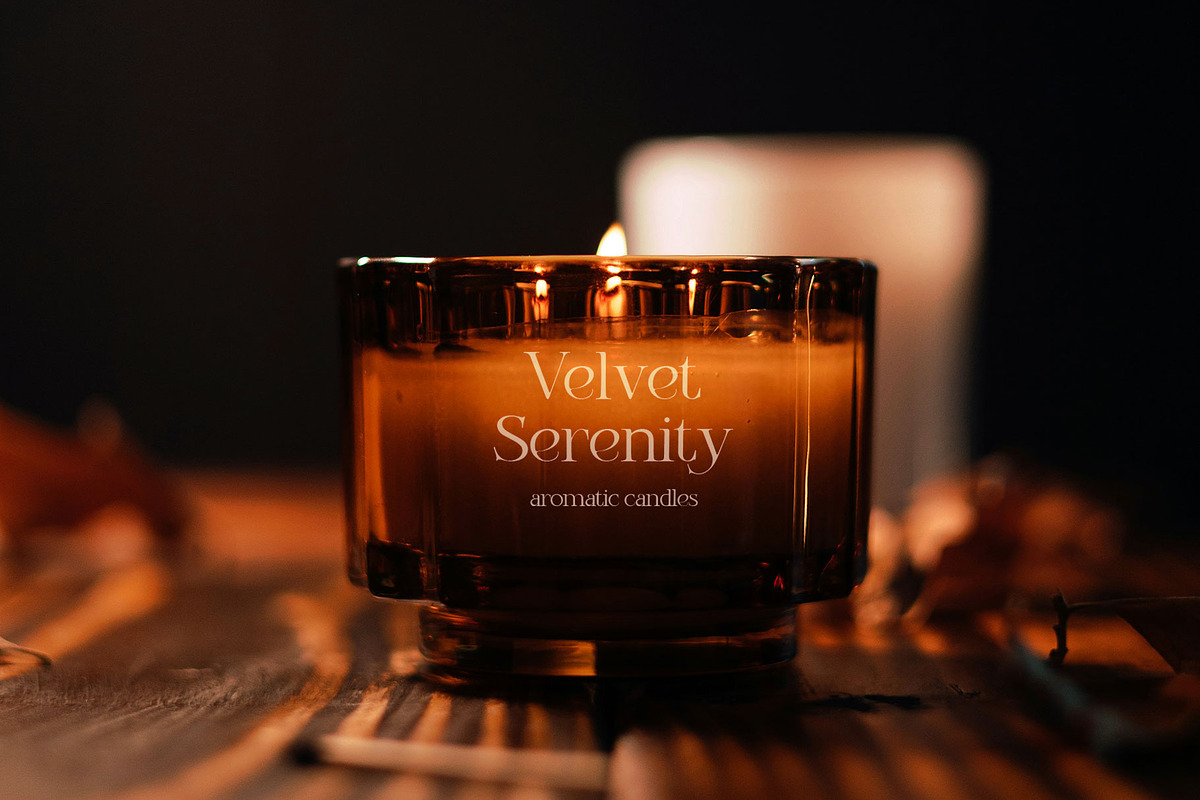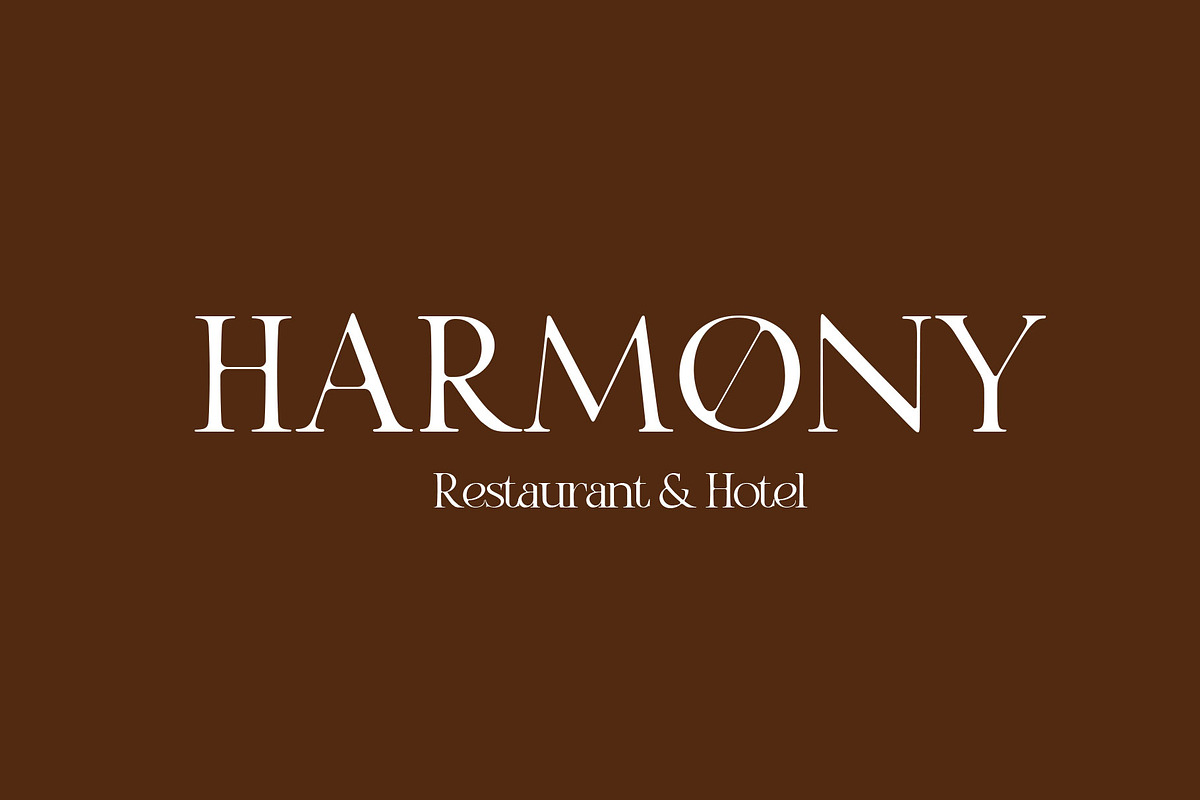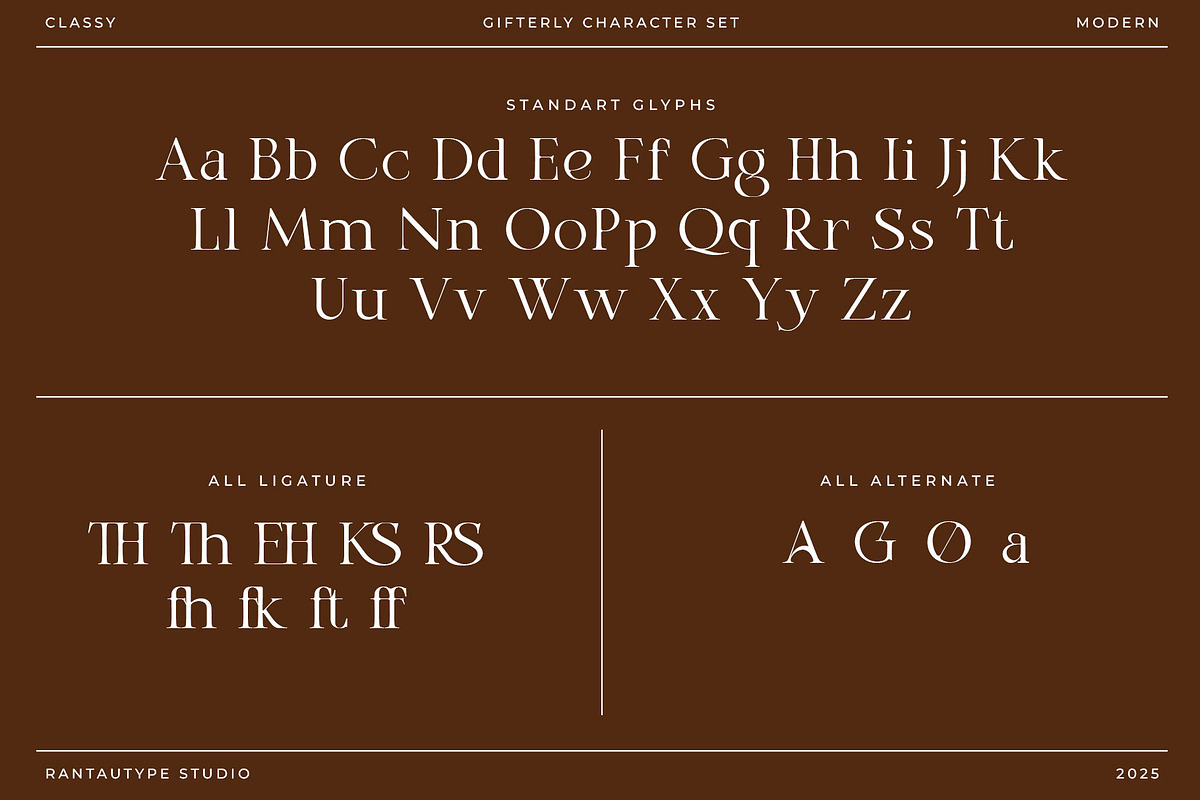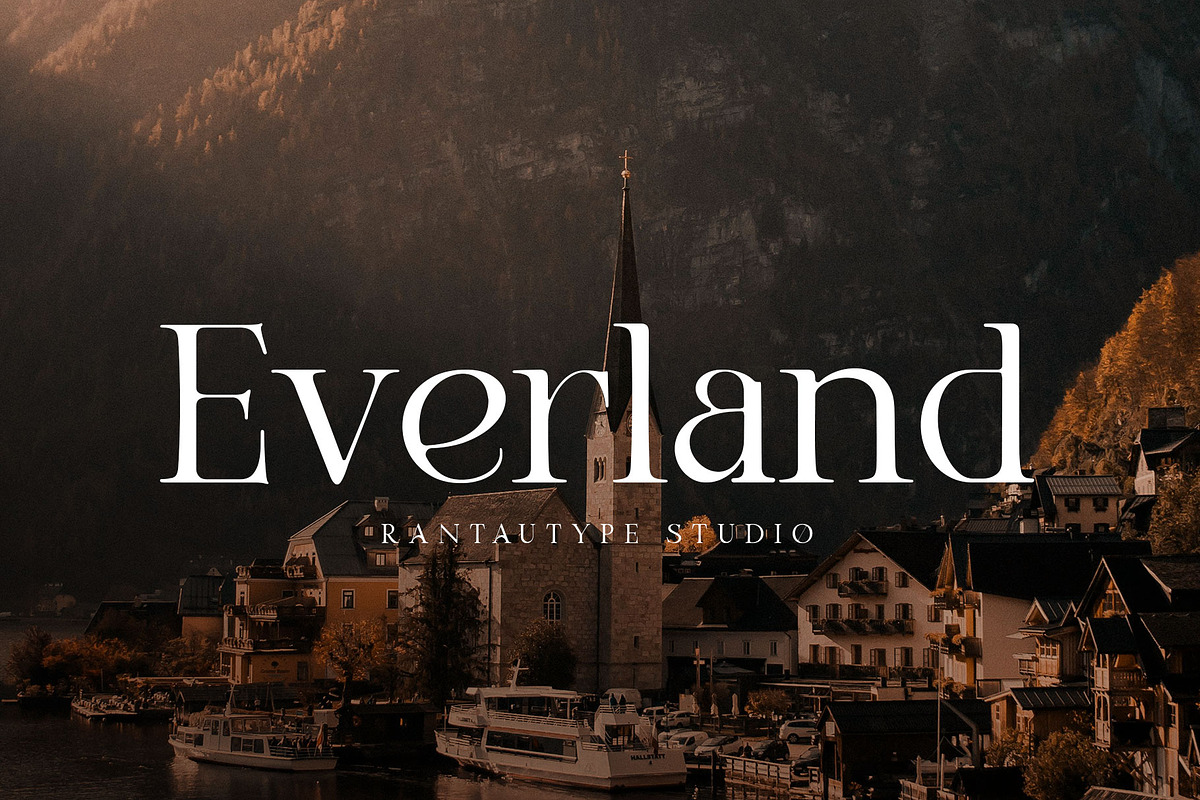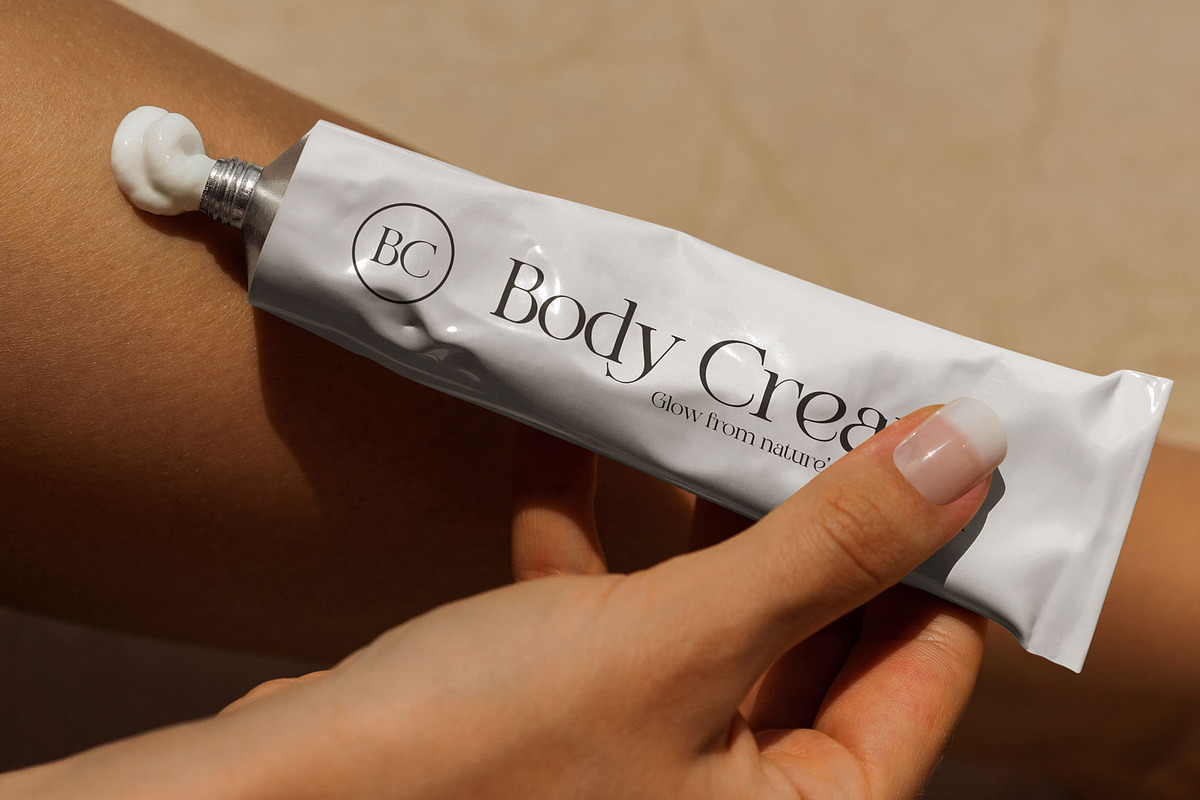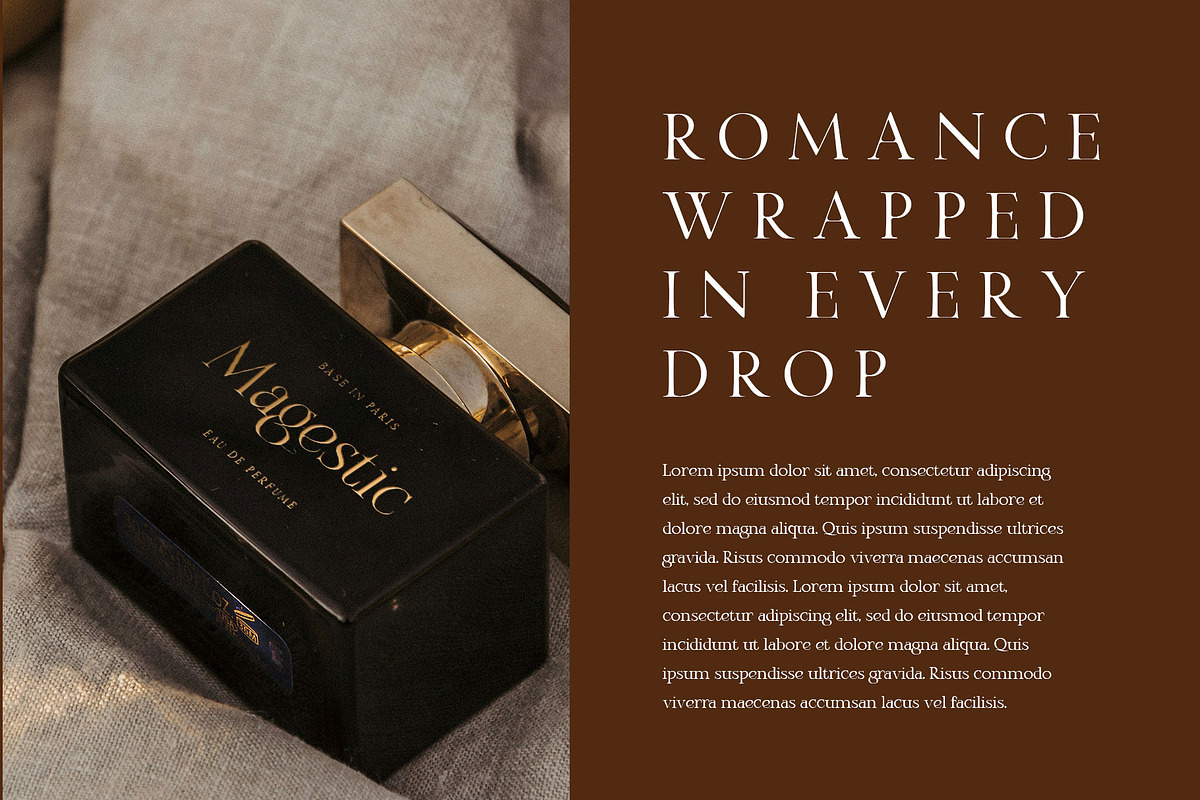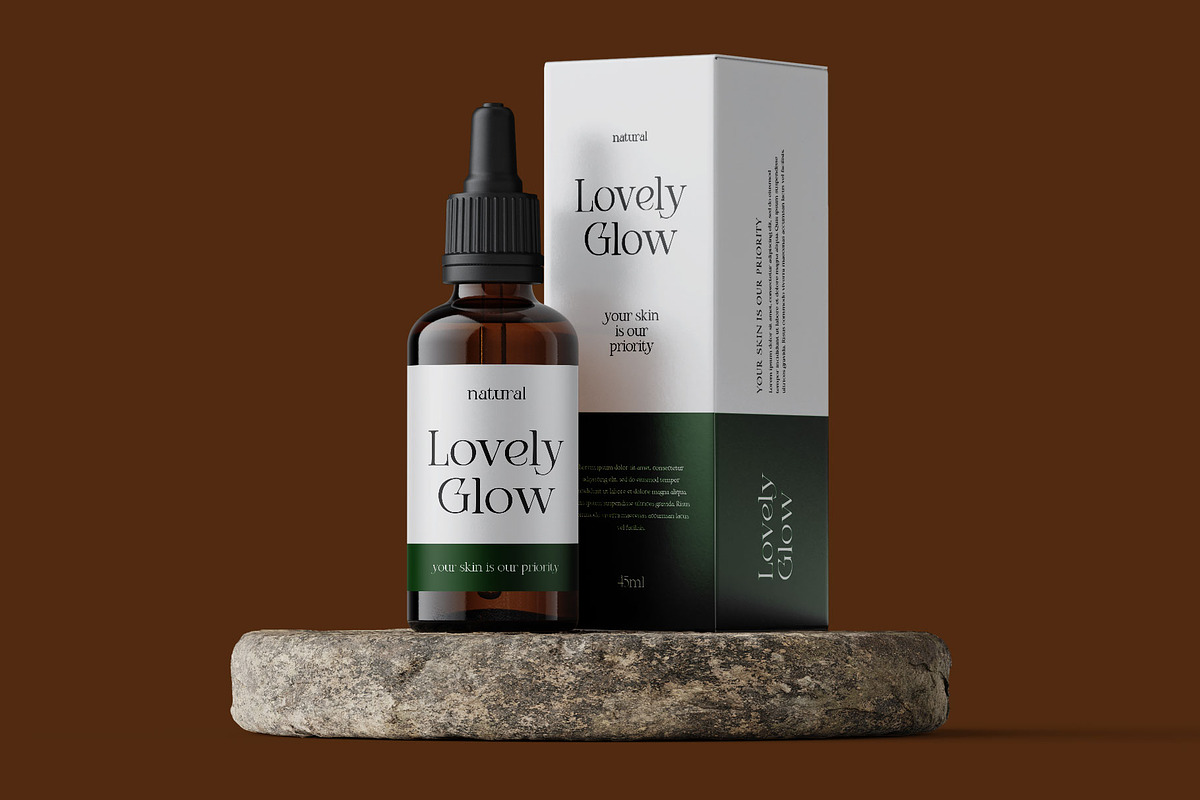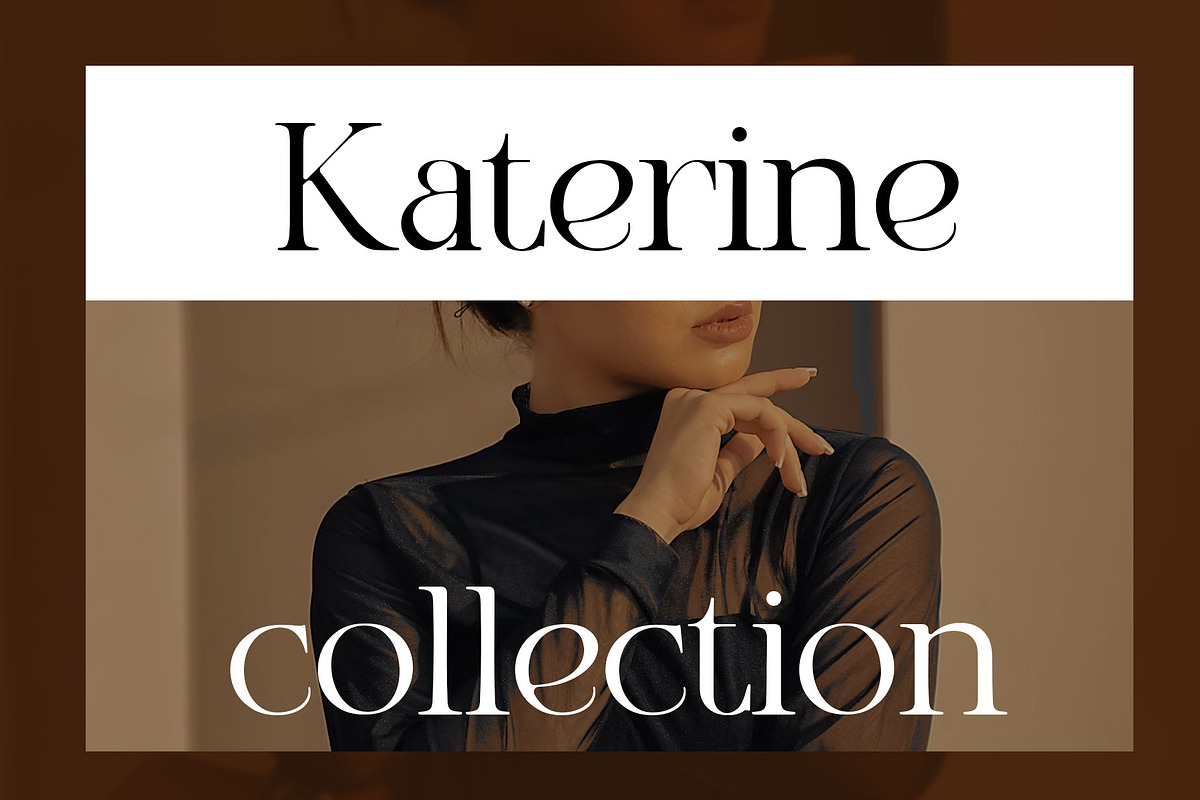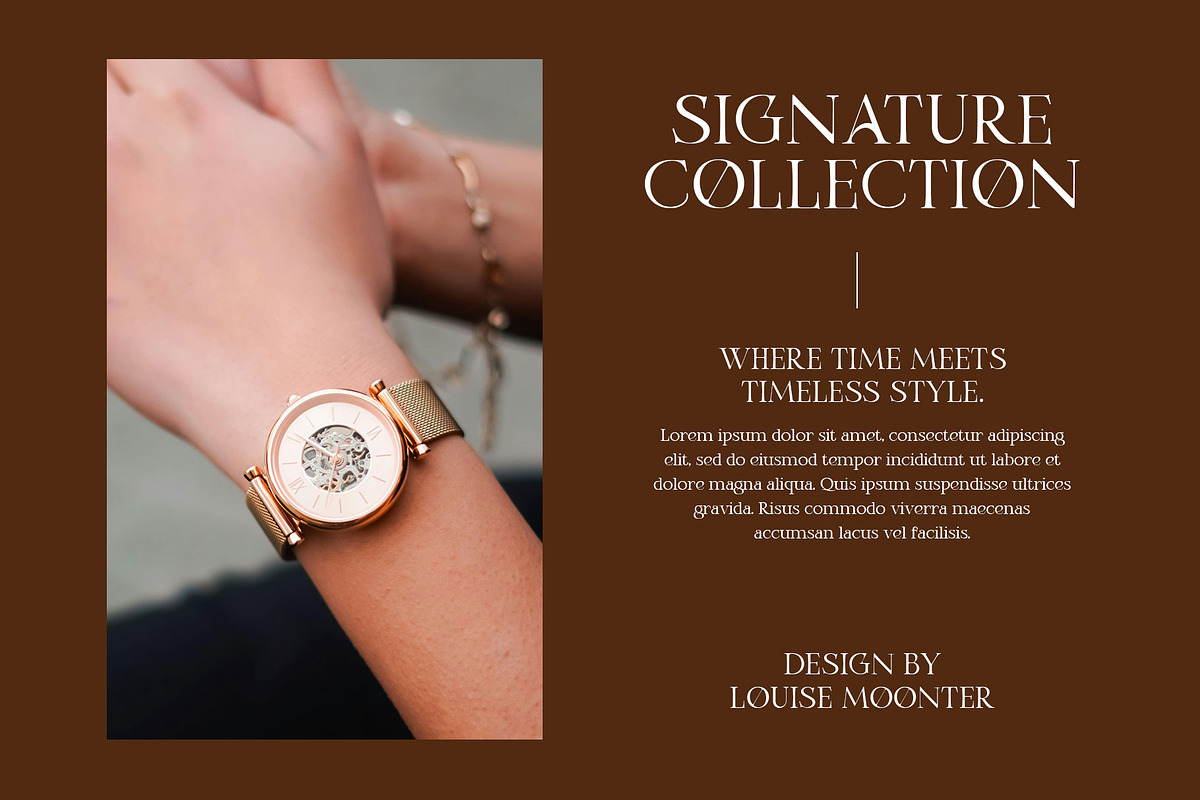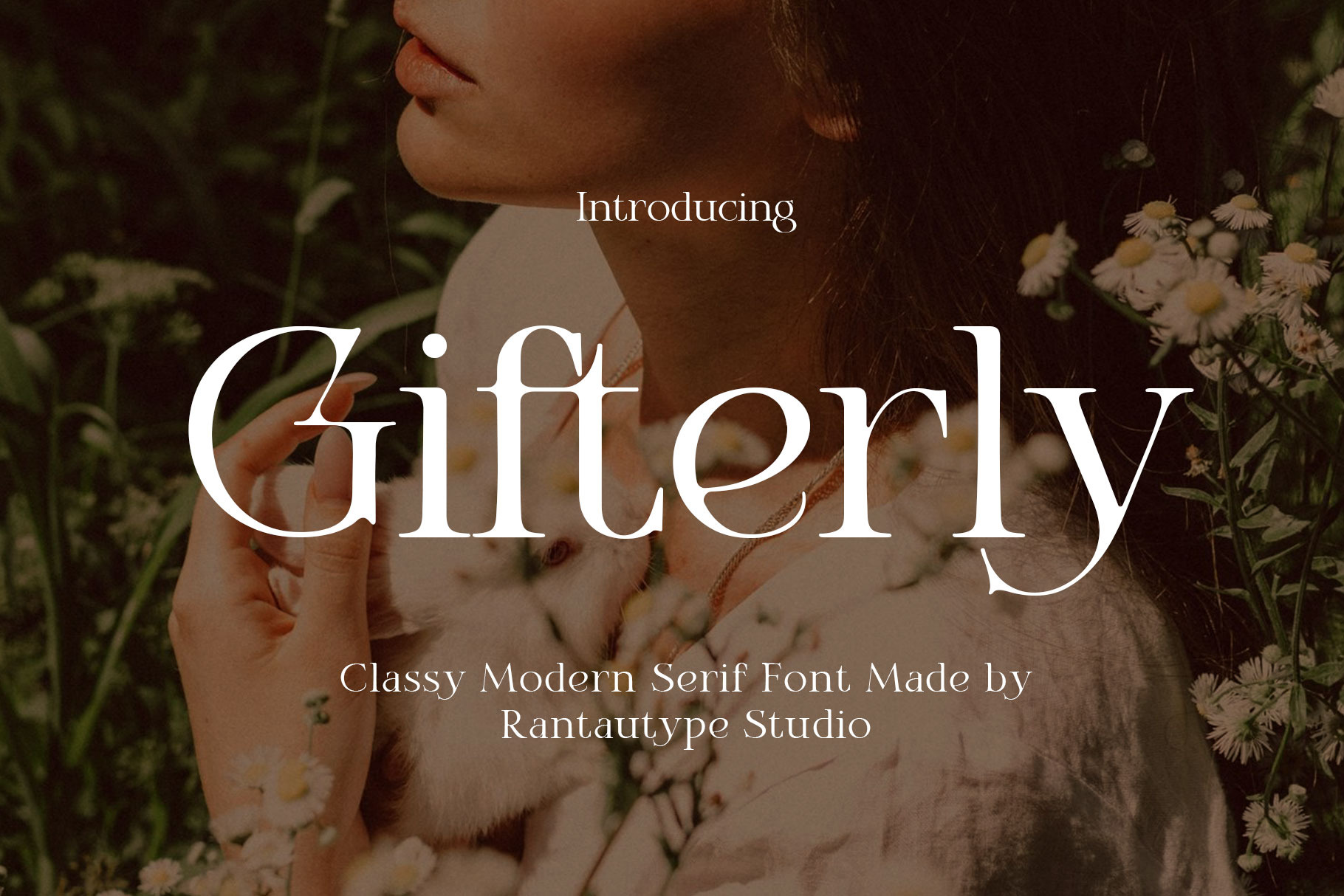
Gifterly Classy Modern Serif Font
Gifterly is serif font embrace grace and feminity. Gifterly come with letterform carries a graceful balance between delicate curves and sharp serifs, creating a luxurious and professional impression. Chennar is a perfectly choice for any creative endeavor, creating, modern, lifestyle design such as logotype, title, cover, branding, invitations, wedding designs, display and magazine, social media posts, advertisements, printed quotes, product packaging, corporate brand, product designs, labels, photography, watermarks, special events and any other project with elegant touch.
- Alternate and ligature